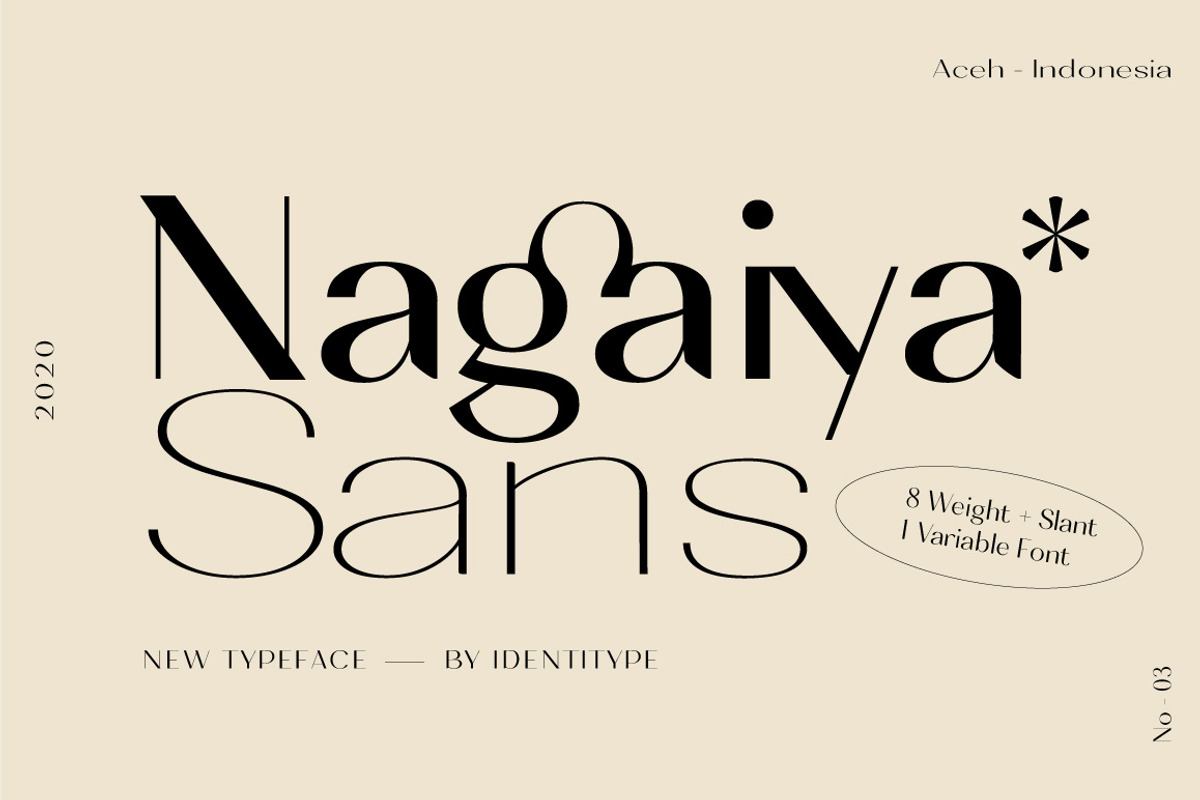
Nagaiya – Font Family With Variable Free Download is a sleek, modern typeface family that includes multiple weights and a variable font option for maximum flexibility. With its clean lines, contemporary proportions, and versatile design, Nagaiya is ideal for branding, editorial layouts, websites, user interfaces, and high-end packaging.
This font family offers a full range of styles—from thin to bold—allowing you to fine-tune your typography with precision. The variable font feature makes it especially powerful for responsive design, giving you total control over weight and width transitions with smooth, scalable performance.